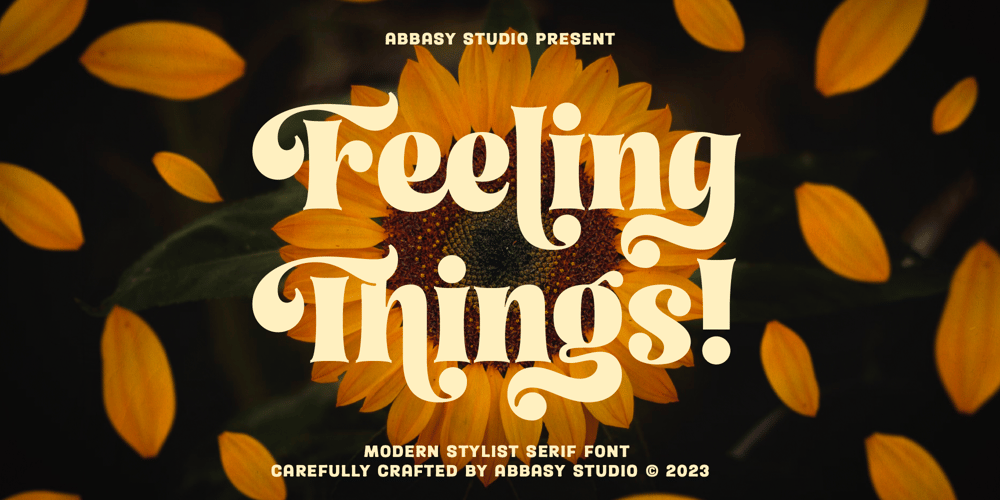
Feeling Things Font Family was designed by Angga Kristiandri and published by Abbasy Studio. Feeling Things contains 1 styles and family package options. Introducing Feeling Things, A Modern Serif Font with Retro Vibes. It was inspired by retro typography designs in 70’s. There are more than 375 glyphs in this font including Multilanguage Support. OpenType features with Stylistic Alternates, Contextual Alternate and ligatures in some characters that allows you to mix and match pairs of letters to fit your design.Feeling Things is perfectly suitable for made to be applied in logo, and the other various formal forms such as invitations, labels, logos, magazines, books, greeting / wedding cards, packaging, fashion, make up, stationery, novels, labels or any type of advertising purpose.